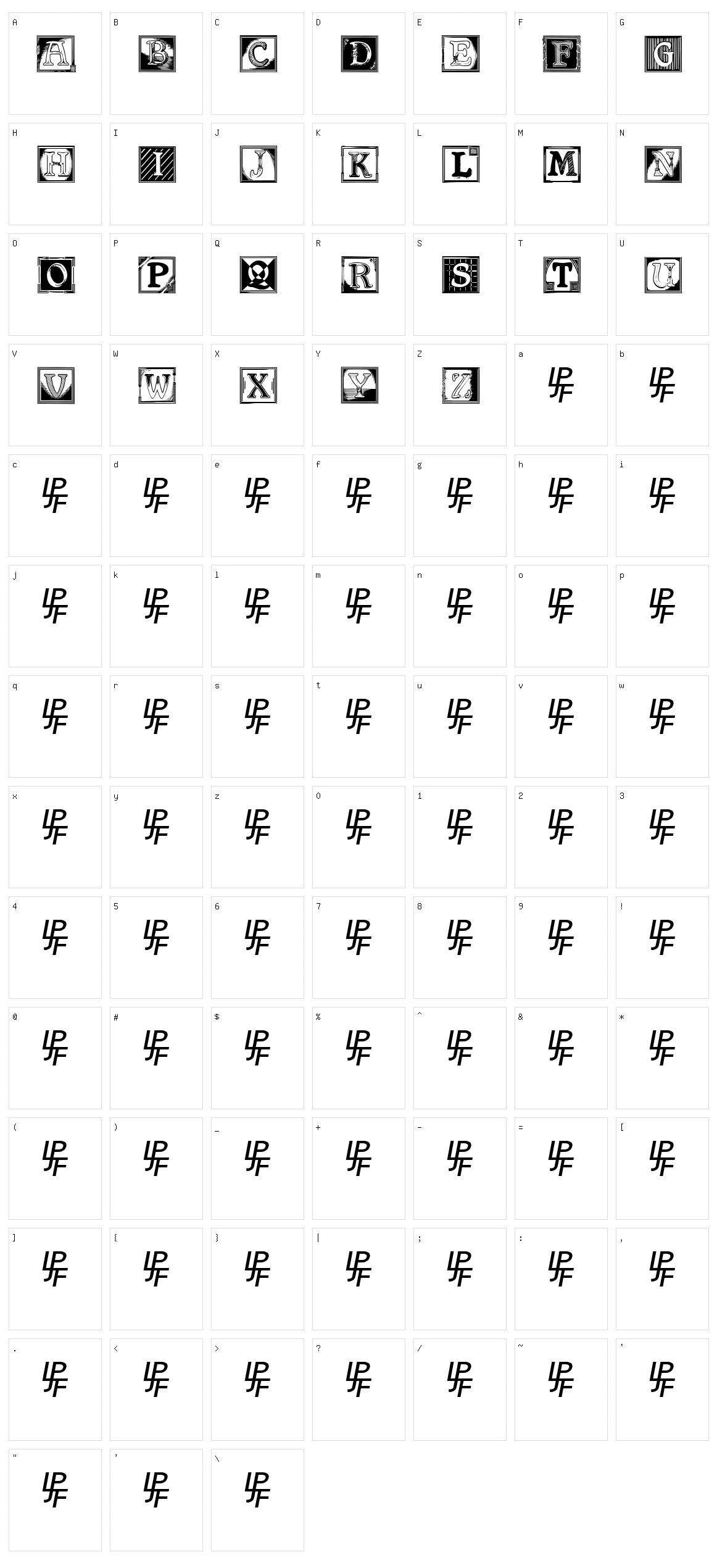
Shrewsbury, named after a lovely English market town in the vicinty of the Welsh border, lives somewhere on the borders of Roman and BlackLetter.
This is a set of 'Woodc ut' initials whioch complement the basic design rather well,as well as exploring a range of different textures that can be applied to this type of capital.